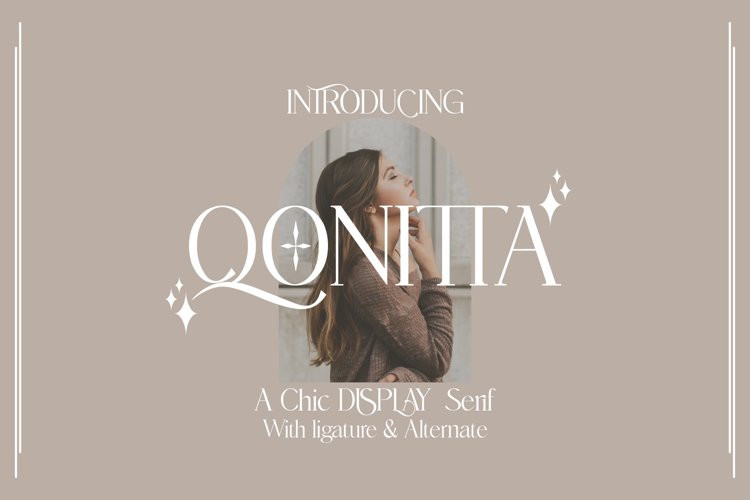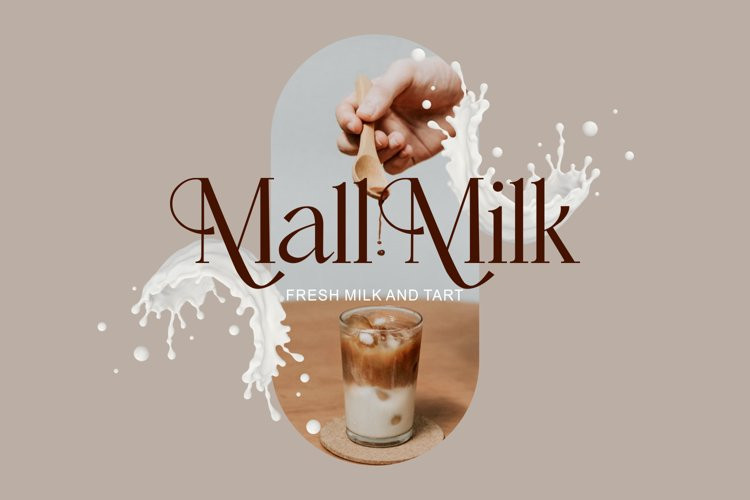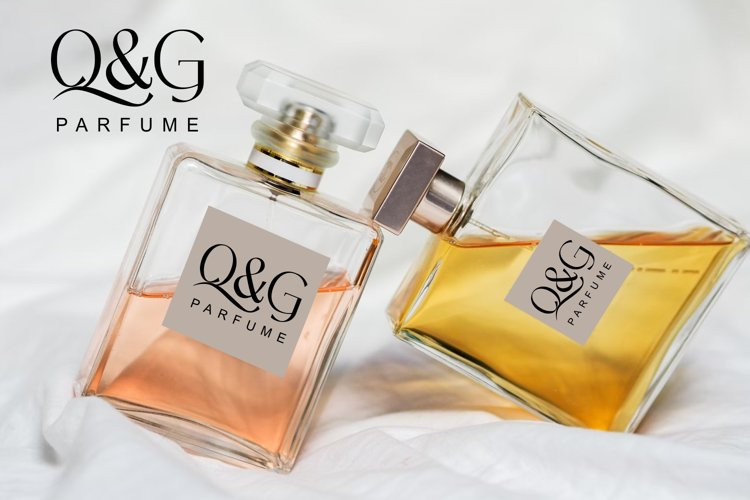
Qonitta Font
Qonitta FontCalled QONITTA is a serif display with a character that is beautiful, and elegant. With the addition of beautiful ligatures and alternatives to make your typography truly unique.